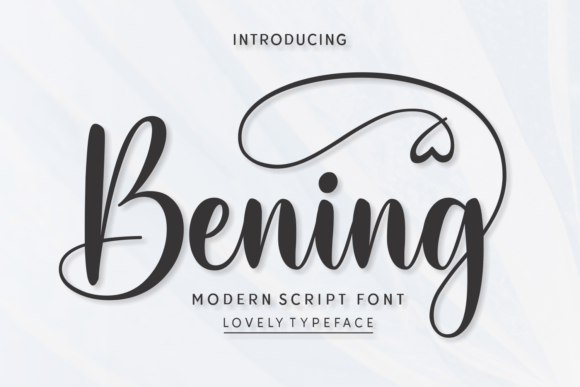
Unveiling Bening Script Font: Elevate Your Designs with Elegance
I’ll never forget the time I was working on a romantic getaway brochure for a client. I had all the stunning visuals and enticing content ready, but something was missing – the perfect font to convey the warmth and passion of the destination. That’s when I stumbled upon the Bening Script Font, and it was love at first sight! 💕
The Bening Script Font is a delightful embodiment of design aesthetics, meticulously crafted to augment the elegance and charm of your creative projects. With its harmonious curves and graceful shapes, this font exudes an irresistible allure, deftly infusing an exquisite aesthetic into your compositions.
• ✨ Exquisite, handcrafted strokes that scream romance and elegance
• ✅ Highly versatile and suitable for a wide range of creative projects
• ✅ Beautifully designed to evoke emotions and add a personal touch
• ⚠️ May not be the best fit for very formal or corporate designs
• ⚠️ Some users might find the font a bit too ornate for certain projects
The Bening Script Font was inspired by the beauty of handwritten calligraphy. The designer, who wished to remain anonymous, spent countless hours perfecting the font’s elegant strokes and curves. The result is a font that exudes romance, elegance, and sophistication.
A: The Bening Script Font is special because of its exquisite, handcrafted strokes and elegant design. It’s perfect for creative projects that require a touch of romance and sophistication.